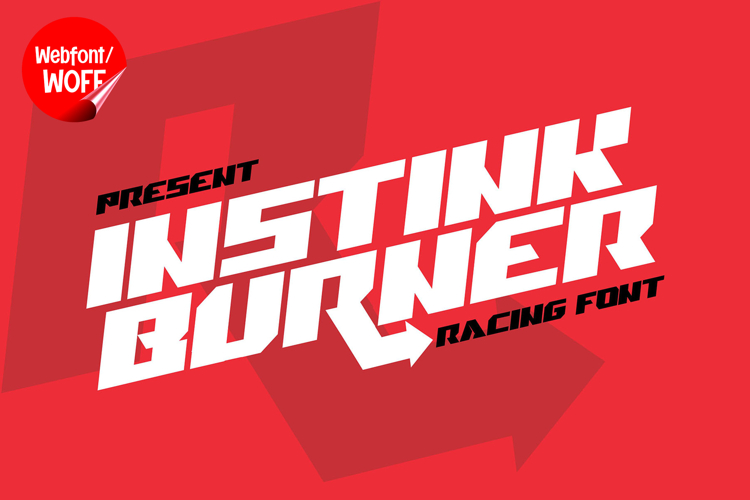
Instink Burner | Sport Futuristic Webfont for Dynamic Web
Instink Burner is a sport futuristic webfont designed to bring speed, power, and high-energy visuals into modern website design. Inspired by athletic branding, racing aesthetics, and advanced digital interfaces, this font features sharp angles, bold structures, and dynamic forms that create a strong sense of motion. It is an excellent choice for projects that require a modern, aggressive, and performance-driven typographic style.
Instink Burner includes a complete set of uppercase characters designed with a futuristic sports-inspired structure. The letterforms feature angular cuts and streamlined shapes that enhance the feeling of speed and precision. These characteristics make it ideal for headlines, banners, hero sections, and featured content where strong visual impact is essential. The bold design helps establish a clear and powerful visual hierarchy.
In addition to letters, the font includes numbers and punctuation, allowing flexible usage across various parts of a website. It works well for sports branding, automotive content, gaming interfaces, esports platforms, promotional campaigns, and navigation elements. Each character maintains a consistent sport-futuristic style, ensuring a cohesive and unified visual identity throughout the design.
With multilingual support, Instink Burner includes a wide range of accented characters, making it suitable for international websites and global audiences. This allows content to be displayed clearly across different languages while maintaining the sleek and energetic aesthetic.
The sport futuristic style of Instink Burner makes it especially suitable for fitness websites, sports teams, racing brands, technology startups, and digital portfolios. Its high-energy appearance adds intensity and motion, helping websites stand out in competitive digital environments. The modern and aggressive look also reinforces branding that focuses on performance, innovation, and speed.
Despite its stylized and angular design, Instink Burner is created with readability in mind. The spacing and proportions are carefully balanced to ensure clarity, particularly in display sizes. This makes it effective for impactful headings and short content elements where both style and usability are important.
Instink Burner is a webfont that combines futuristic aesthetics with sports-inspired energy and modern digital performance. Its sharp forms, bold structure, and dynamic flow create a distinctive typographic presence that enhances website design. For projects that require a fast, powerful, and visually striking font, Instink Burner offers a strong and engaging solution.